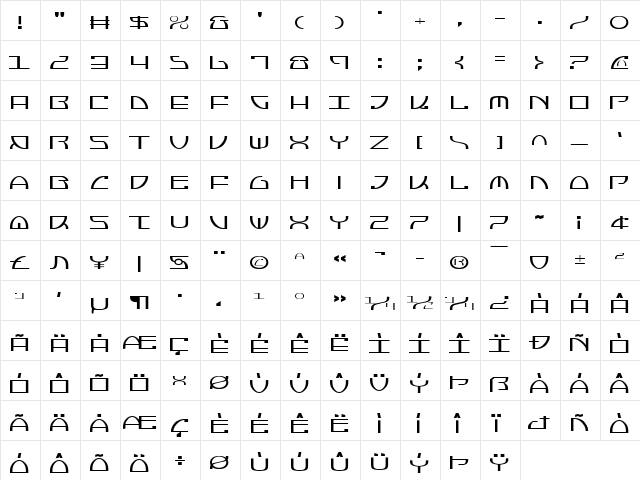
Jumptroops Light Light
Design Context for Jumptroops Light Typeface
Jumptroops Light is a composed and adaptable typeface that performs quietly and consistently across a wide range of design contexts. Its slender proportions lend an understated elegance to any composition.